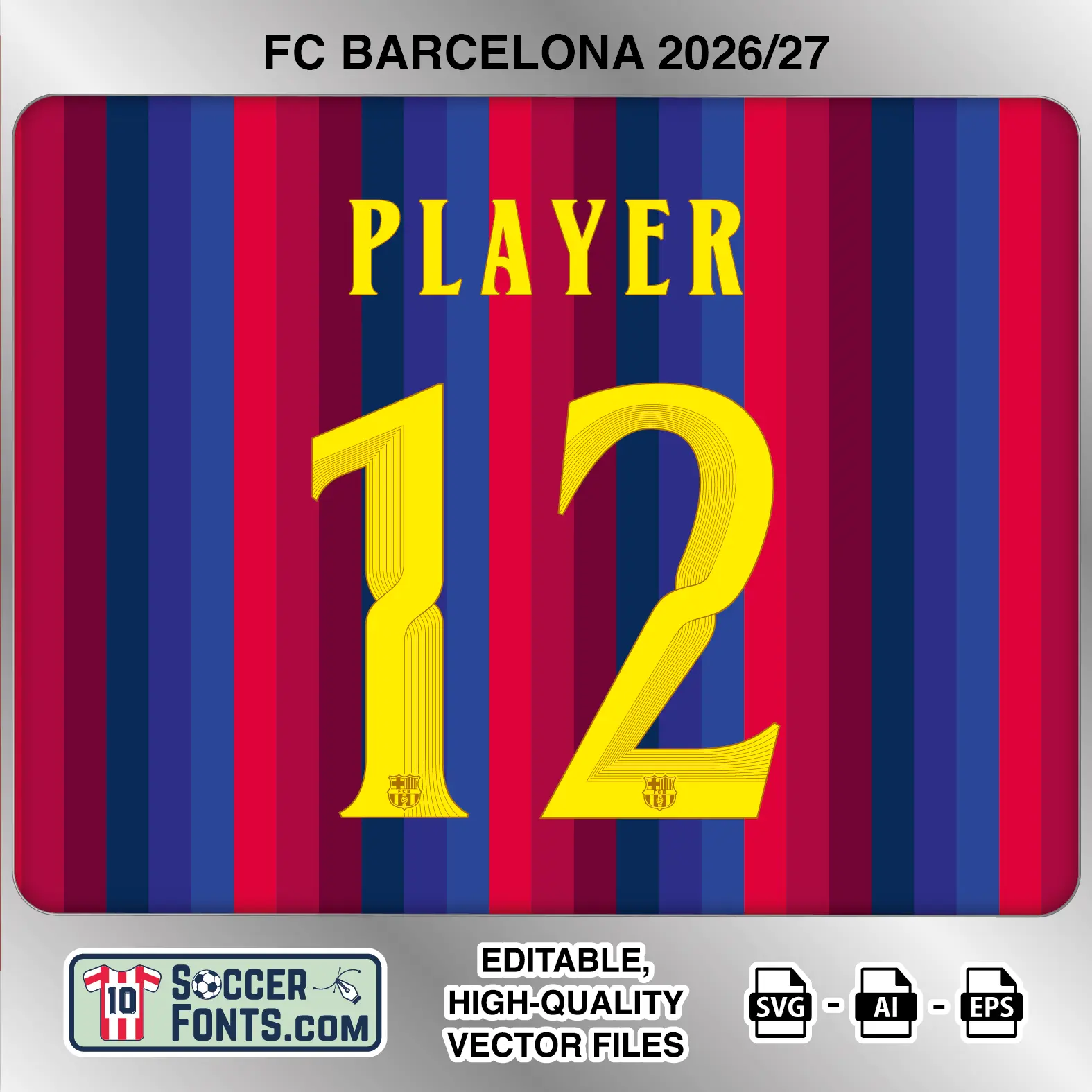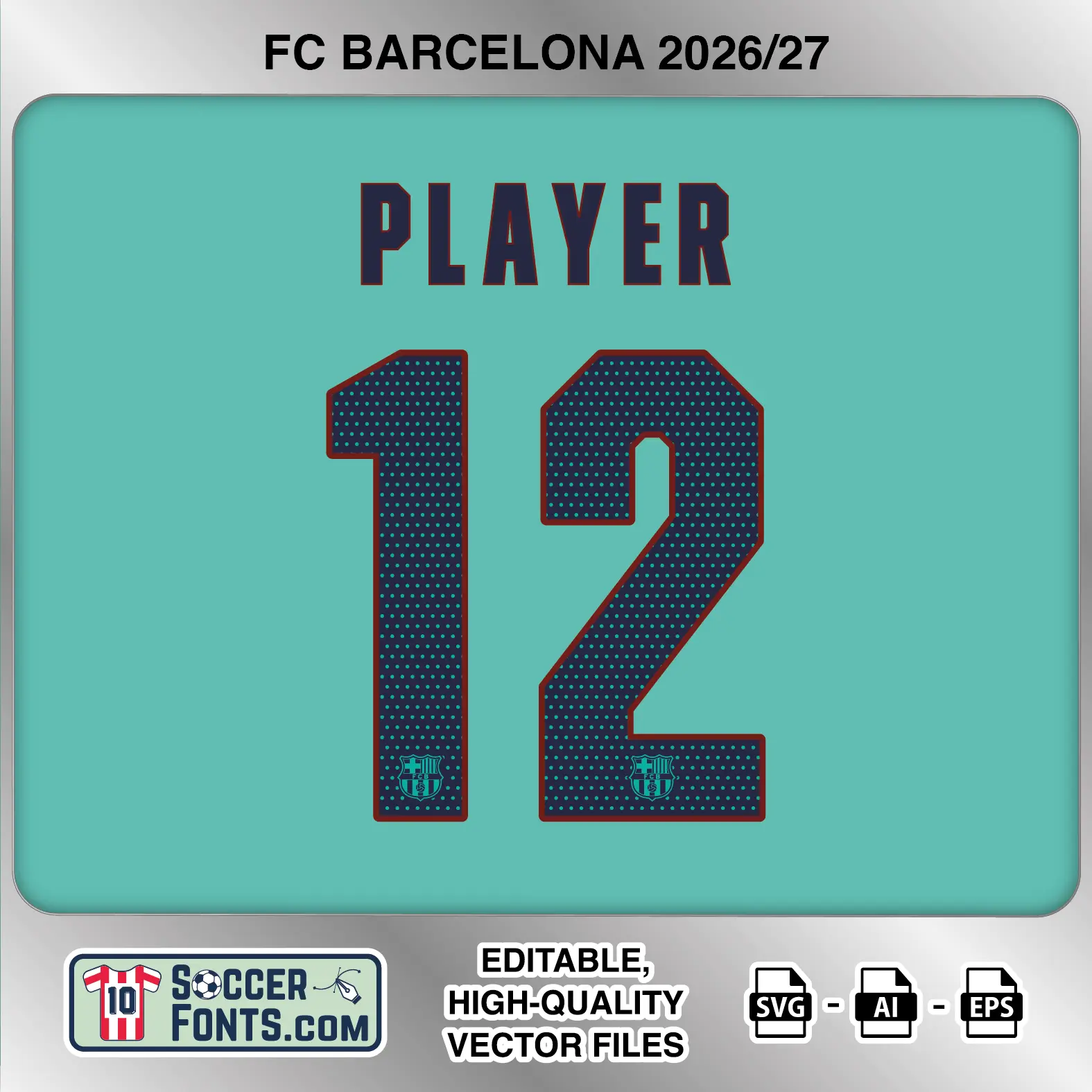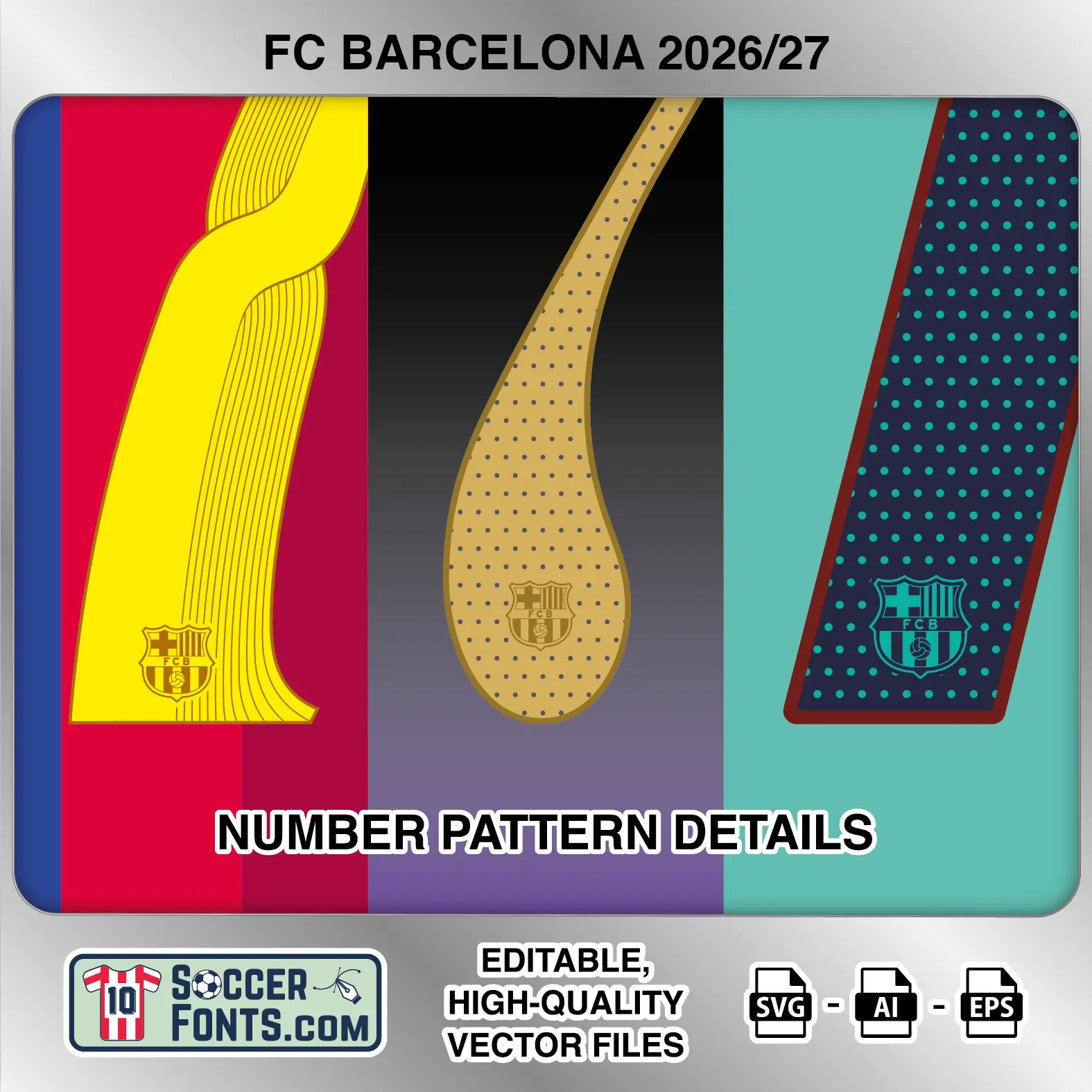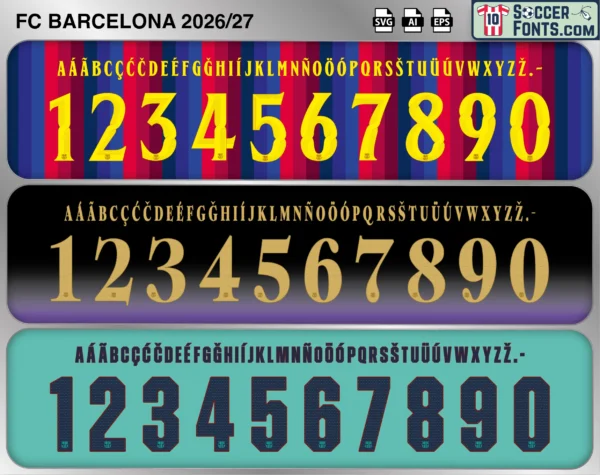
About FC Barcelona 2026-27 Font UCL
Download FC Barcelona 2026-27 font UCL, a complete editable soccer jersey lettering collection in vector format inspired by the different Barcelona home, away and third kit typography used during the 2026-27 football season. This package also includes the separate UEFA Champions League lettering and number styles, giving you multiple distinct designs for Barcelona shirt recreations, custom jersey projects, football kit mockups and sports graphic design workflows.
Visual Identity of the Font Design :
The home version uses a decorative yellow type treatment over the blaugrana striped shirt. Its uppercase lettering is narrow and elegant, while the numbers have highly distinctive sculpted forms built from flowing curves, tapered sections and repeated fine-line details. The number shapes are noticeably unconventional, particularly the intertwined construction visible through the 1, 2, 3, 6, 8 and 9. A small Barcelona crest appears near the base of each numeral.
The away version takes a completely different direction. Gold lettering and numbers use tall, narrow serif forms with pronounced curved terminals and variable stroke widths. The numerals contain a fine dotted texture across their surfaces, while the Barcelona crest is positioned near the lower section. This creates a more traditional, ornamental appearance than the home typography.
The third version changes again to a heavy condensed block style. The dark numbers feature clipped corners, straight geometric construction and a regular dotted interior pattern, accompanied by a contrasting outline. The player name uses a similarly condensed uppercase structure, and a Barcelona crest is integrated near the bottom of the numerals.
The UEFA Champions League set supplied with the product includes all three color applications shown in the preview while retaining the same UCL lettering design. Its narrow uppercase alphabet has an extensive range of accented characters, while the large numbers use a tall, condensed construction with angular corners and strong vertical proportions.
Context of 2026-27 Season for FC Barcelona :
With separate typography for the home, away and third shirts plus dedicated European lettering, the FC Barcelona 2026-27 Font provides a broad reference for recreating Barcelona shirts from different competitions and kit combinations throughout the campaign.